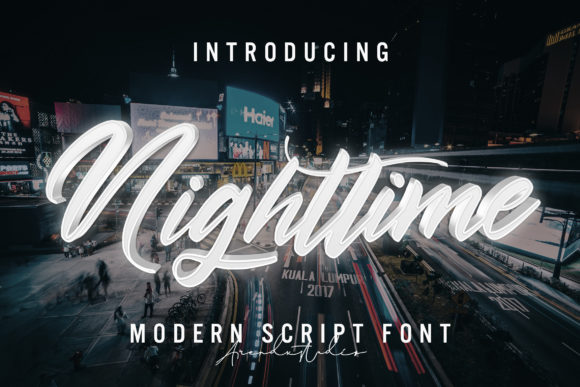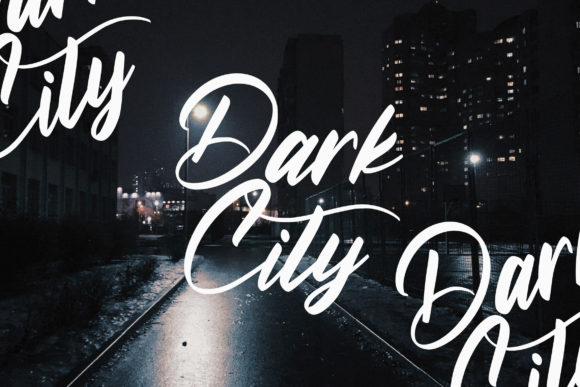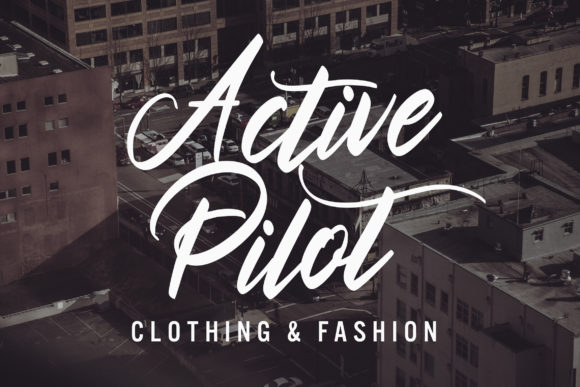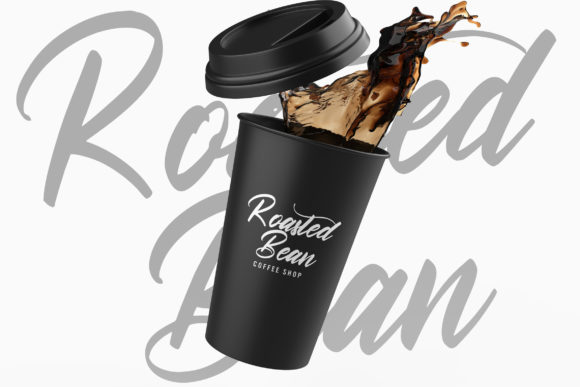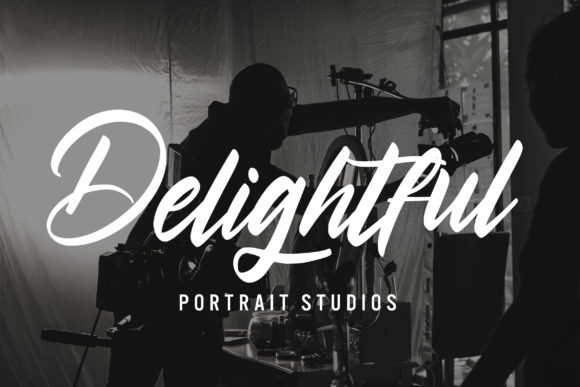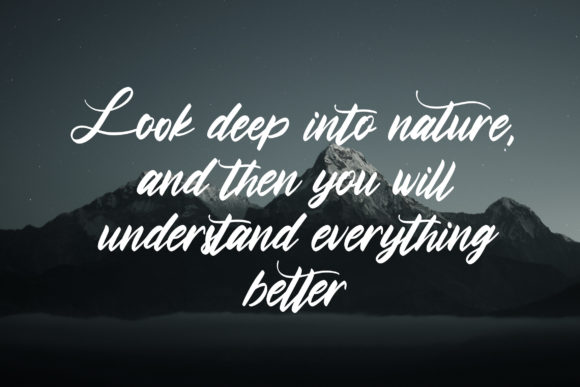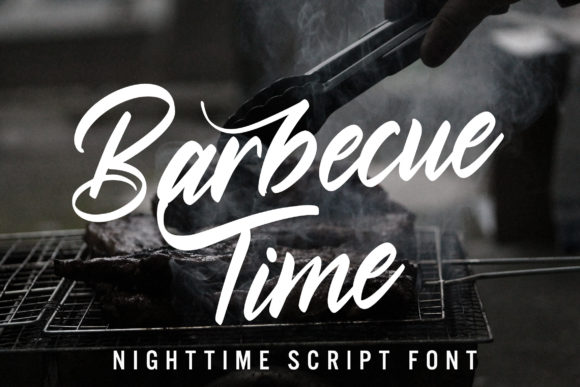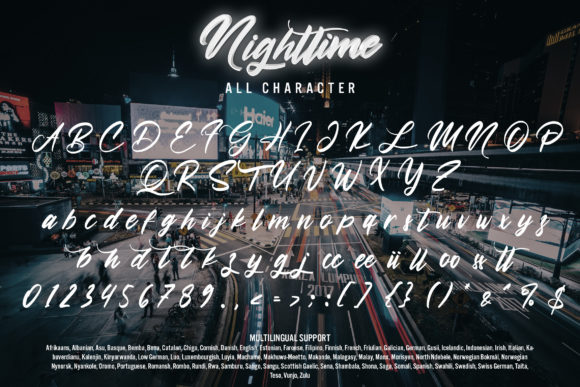
Nighttime Font
About Nighttime Font
Nighttime is an enchanting and captivating script font that brings a touch of magic and elegance to your designs. With its dazzling and intricate letterforms, this font is a true work of art, carefully crafted to add a sense of sophistication and style to any project.
The attention to detail in Nighttime is remarkable, with each letter meticulously designed to create a harmonious and flowing script. The strokes and curves of the letters are gracefully connected, giving the font a seamless and polished look. Whether used for headings, logos, invitations, or any other creative endeavor, Nighttime is sure to make a bold statement.
One of the standout features of Nighttime is its versatility. It adapts beautifully to a variety of topics and themes, making it a valuable asset to your font library. From elegant wedding invitations to luxurious branding, Nighttime adds a touch of glamour and refinement to any design. Its timeless appeal ensures that it remains relevant and captivating for years to come.
The meticulous craftsmanship of Nighttime extends beyond its letterforms. The font is neatly crafted, with attention given to every detail, ensuring that it delivers a high-quality and professional result. This level of precision and care is evident in the overall design, making Nighttime a reliable choice for projects where excellence is expected.
Incorporating Nighttime into your designs is effortless, thanks to its versatility and inherent beauty. Its neatly crafted and highly detailed nature makes it a valuable asset for a wide range of creative endeavors, from branding and packaging to editorial designs and more.
In summary, Nighttime is a dazzling script font that exudes elegance and sophistication. Its meticulously crafted and highly detailed design ensures that it enhances any creation it is used in. With its versatile nature and captivating style, Nighttime is a valuable addition to your font library, ready to elevate your designs and captivate your audience with its enchanting allure.